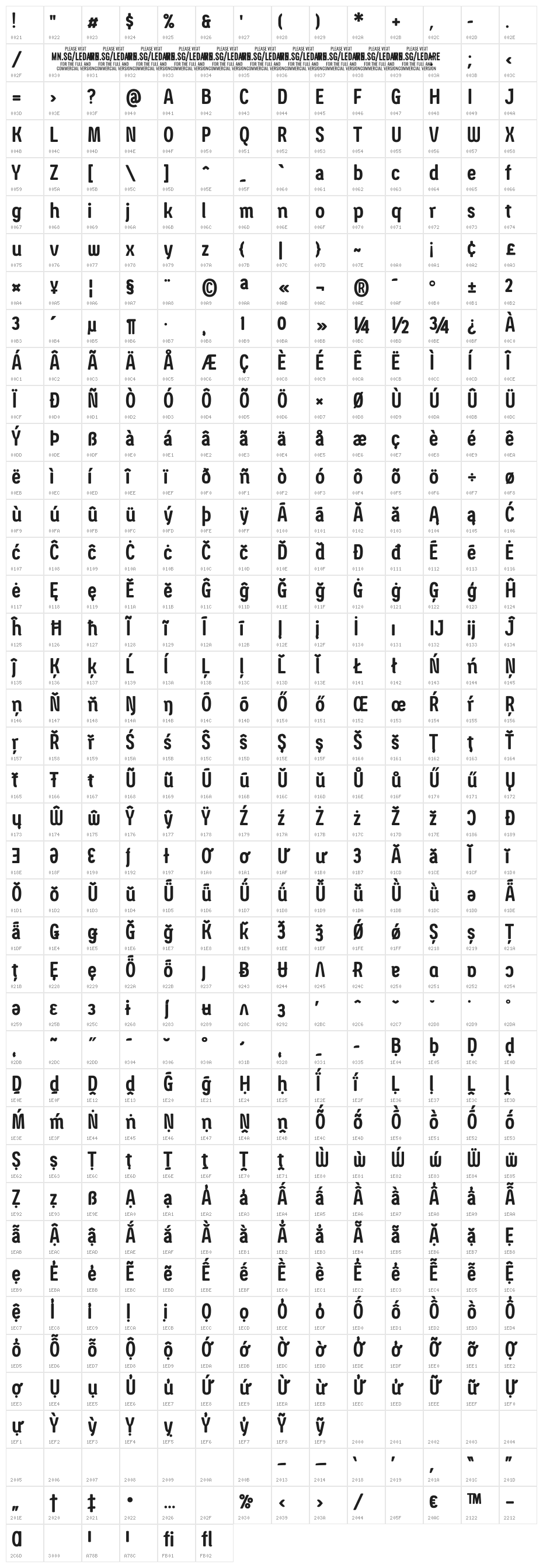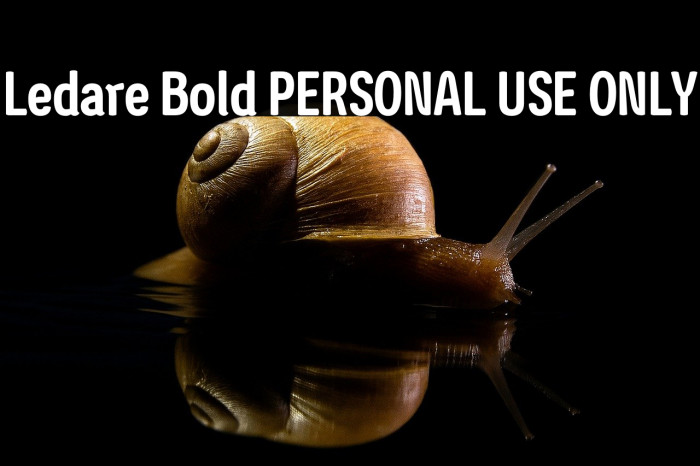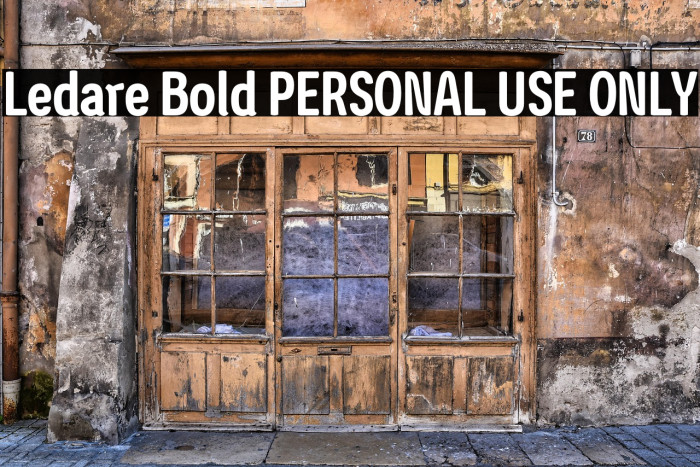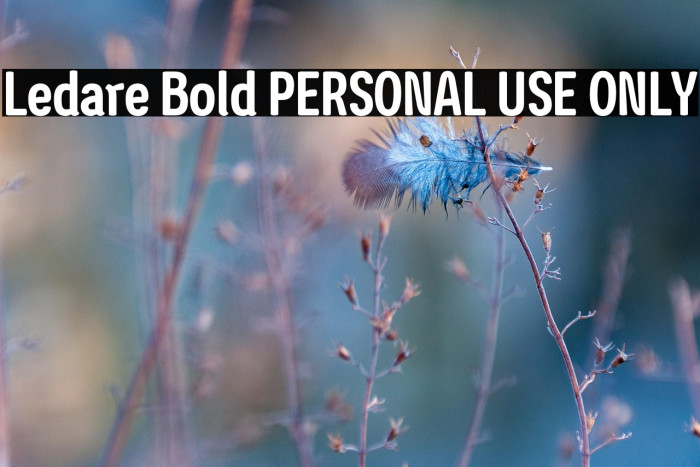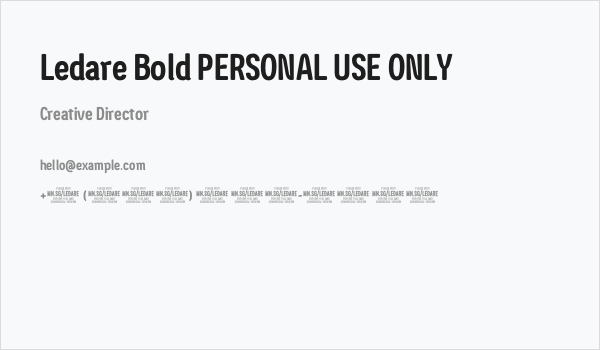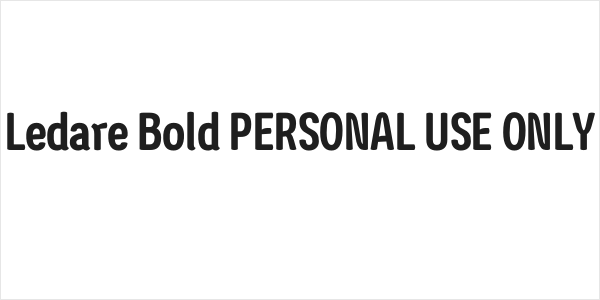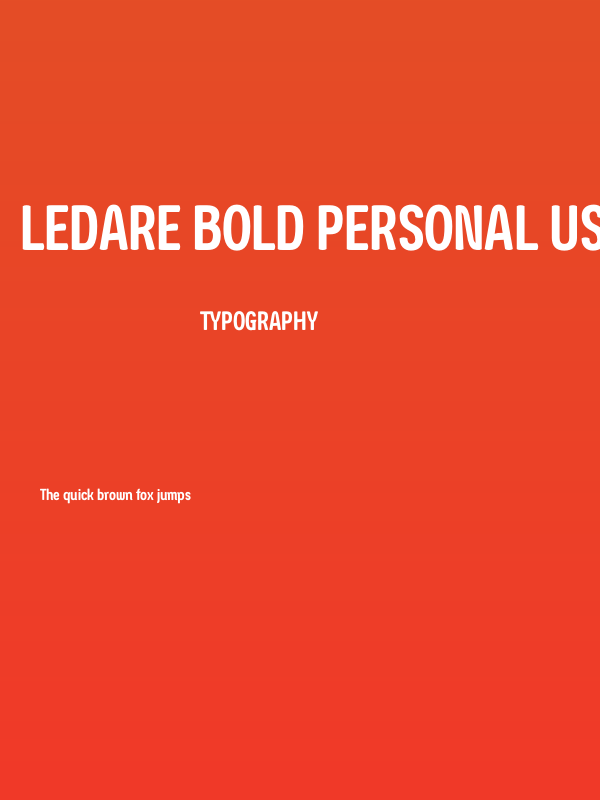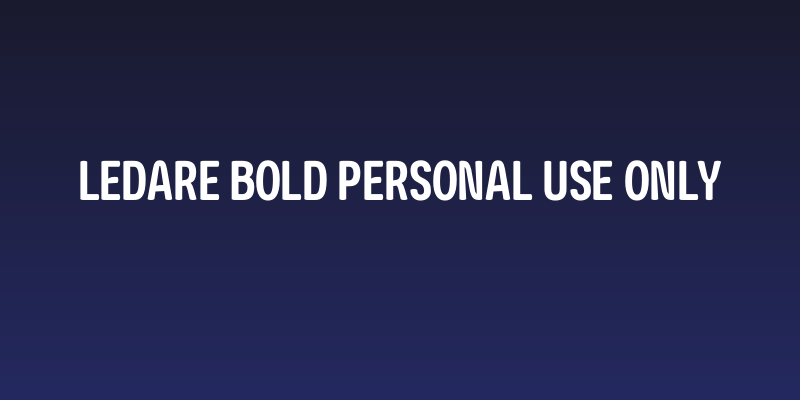
Ledare Bold PERSONAL USE ONLY Font
Ledare Bold PERSONAL USE ONLY Description
This bold typeface features a robust and modern design with smooth curves and a slightly condensed structure. The uppercase letters are tall and commanding, while the lowercase letters maintain a consistent height, providing a balanced appearance. The font includes a full set of numerals and a variety of special characters, making it versatile for different uses. Its bold weight and clean lines make it suitable for impactful headlines and attention-grabbing designs. The character spacing is normal, ensuring readability while maintaining a strong visual presence.